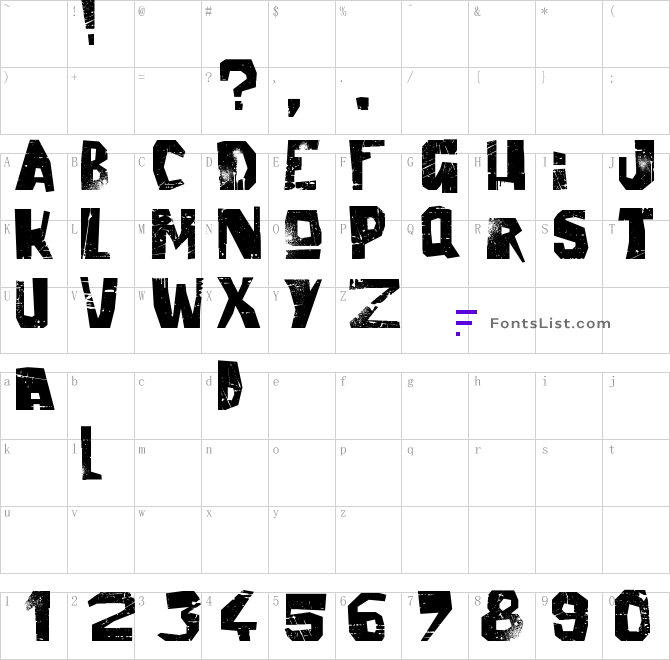
- Font Name:Ballad of Dwight Frye
Ballad-of-Dwight-Frye.ttf is a very beautiful artistic font, Ballad-of-Dwight-Frye.ttf is widely used in the design and printing of various books and pictures,Ballad-of-Dwight-Frye.ttf has a strong visual impact,Ballad-of-Dwight-Frye.ttf is a commonly used font in newspapers, magazines and books, and is used in posters, e-commerce Poster design, store design, logo design, font design and other fields.Ballad-of-Dwight-Frye.